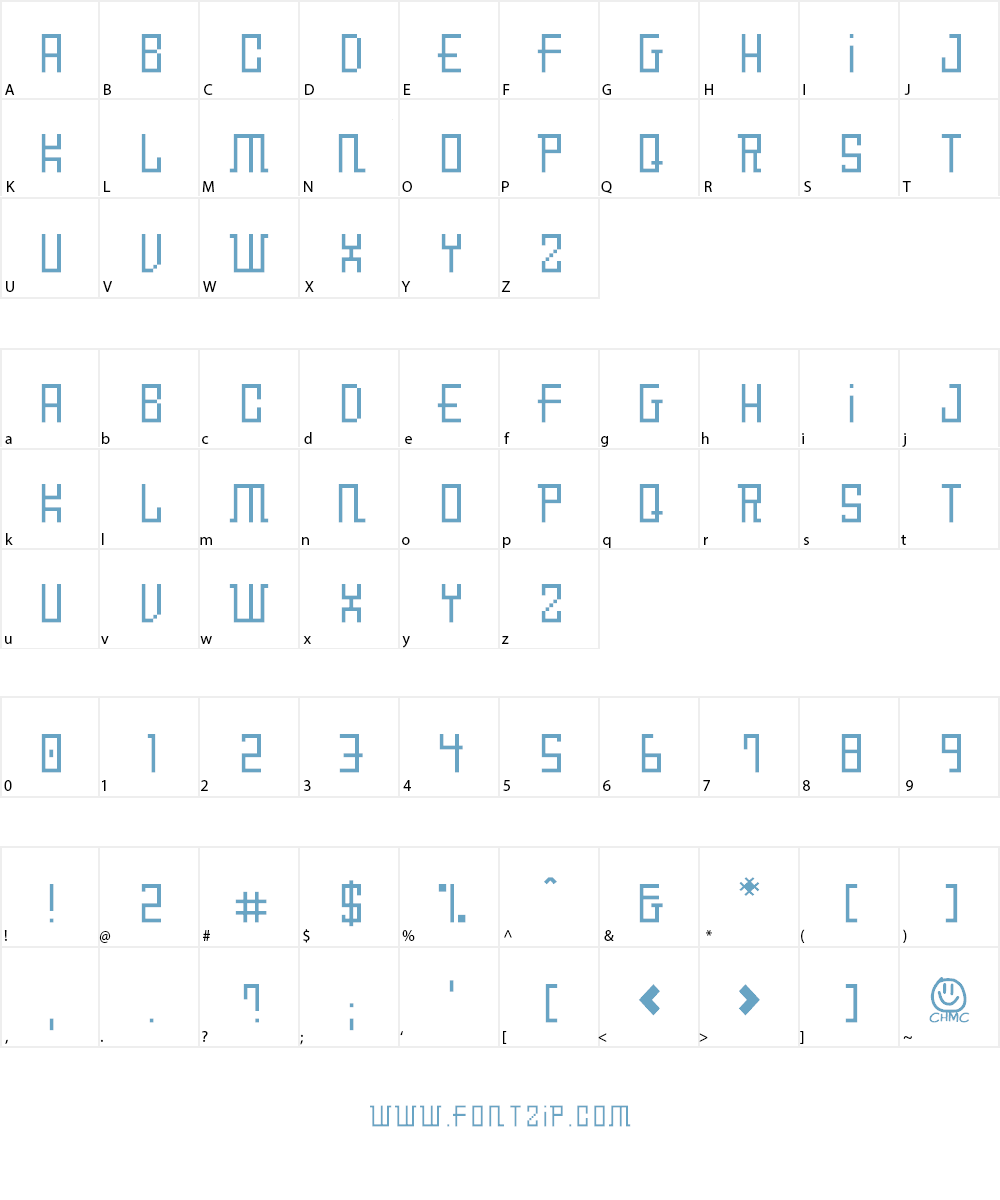
Futurepolis 3000 is a new futuristic, pixel font made by me at Heaven Castro Studios.
Kerning is restricted to full pixel increments to give it that perfect pixel font look.